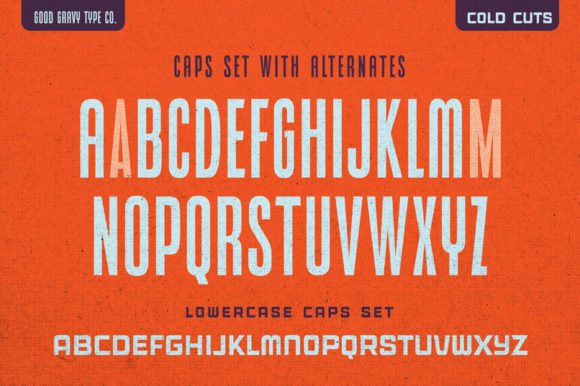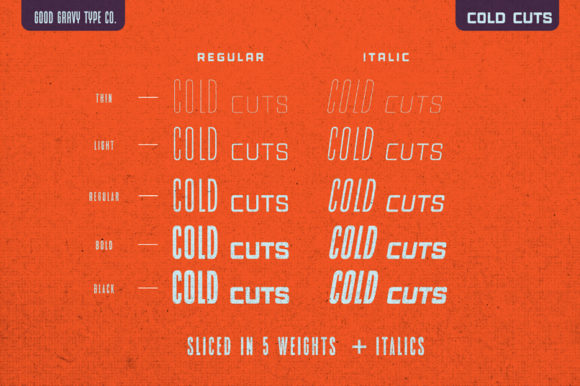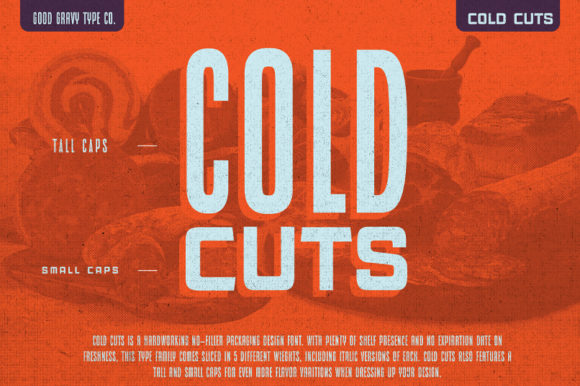
Cold Cuts Font: Elevate Your Designs with a Modern Sans Serif
In the world of typography, fonts play a crucial role in conveying the message and aesthetic of a design. For designers and crafters looking for a modern and strong sans serif font, Cold Cuts is an excellent choice. With 10 different styles to choose from, Cold Cuts is a versatile font that can take your projects to the next level.
What is Cold Cuts Font?
Cold Cuts is a contemporary sans serif font designed to make a statement. Its clean lines, precise curves, and geometric shapes create a strong and modern look that is perfect for a wide range of design applications. Whether you’re working on a branding project, a website, or a craft, Cold Cuts provides a professional and sleek appearance that is sure to impress.
Key Features of Cold Cuts Font
- 10 Different Styles: Cold Cuts offers a range of styles to suit your design needs, from light and subtle to bold and impactful.
- Modern and Strong: The font’s sans serif design gives it a modern and clean look that works well in a variety of contexts.
- High-Quality Design: Cold Cuts is designed with precision and attention to detail, ensuring that it looks great in any size or application.
- Versatile: The font is suitable for a wide range of projects, including branding, websites, posters, and crafts.
Benefits of Using Cold Cuts Font
So, why choose Cold Cuts for your next design project? Here are just a few benefits of using this versatile font:
- Enhance Your Brand: With Cold Cuts, you can create a professional and cohesive brand image that stands out from the competition.
- Improve Readability: The font’s clear and clean design makes it easy to read, even at small sizes.
- Increase Creativity: With 10 different styles to choose from, you can experiment with different looks and find the perfect fit for your project.
In conclusion, Cold Cuts is a modern and strong sans serif font that is perfect for designers and crafters looking to elevate their designs. With 10 different styles to choose from, Cold Cuts offers a versatile and professional look that is sure to impress. Whether you’re working on a branding project, a website, or a craft, Cold Cuts is a great choice. So why not give it a try and see how it can take your designs to the next level?